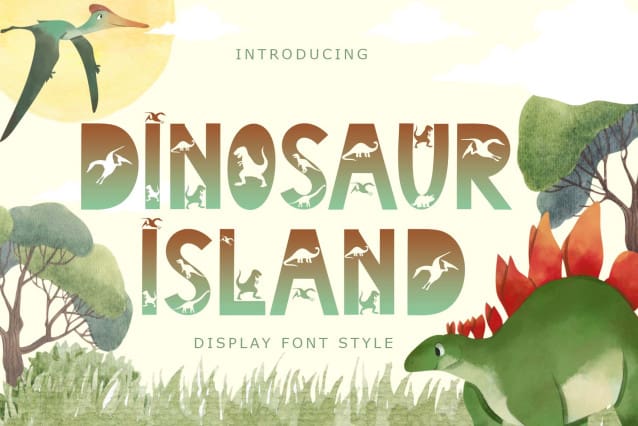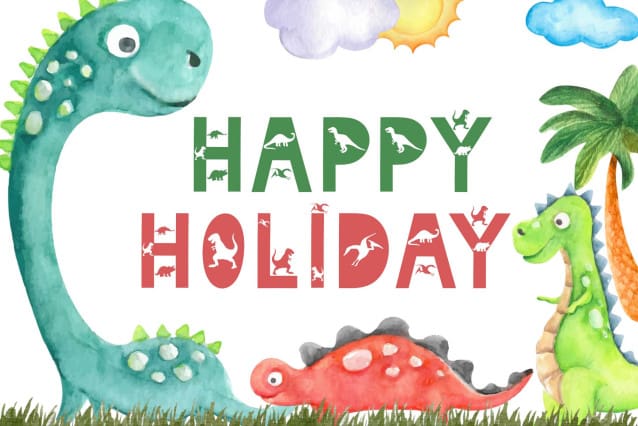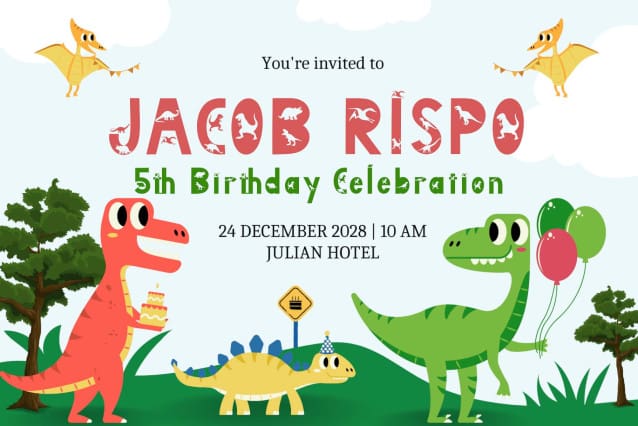
Dinosaur Island Font
Dinosaur Island Font is a charming decorative font that brings whimsy and fun to any design. With playful letterforms decorated with Easter-themed elements, it captures the spirit of the holiday. Perfect for creating eye-catching titles, greeting cards and Easter-themed designs that bring warmth and joy.